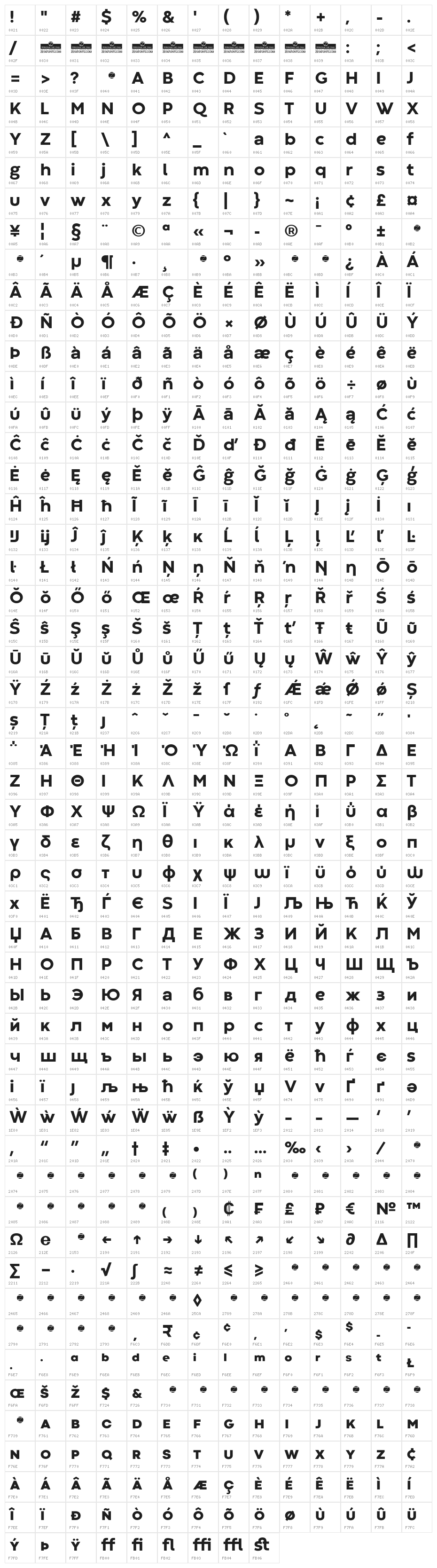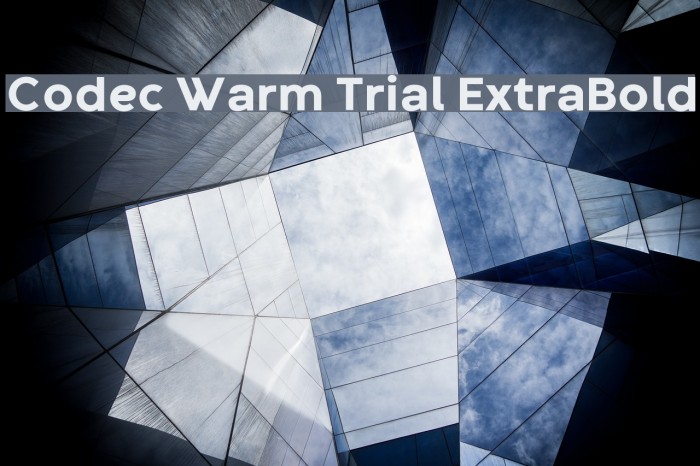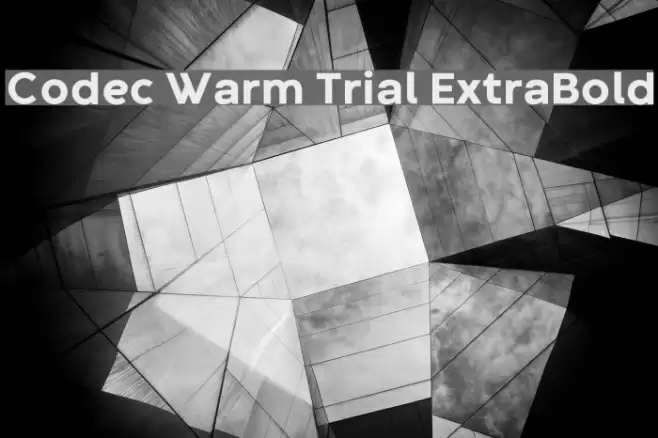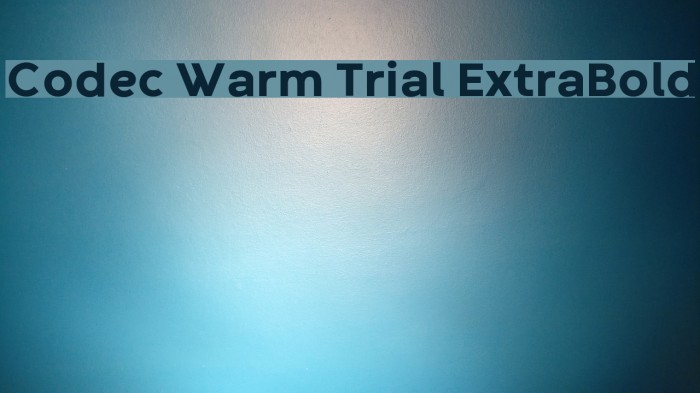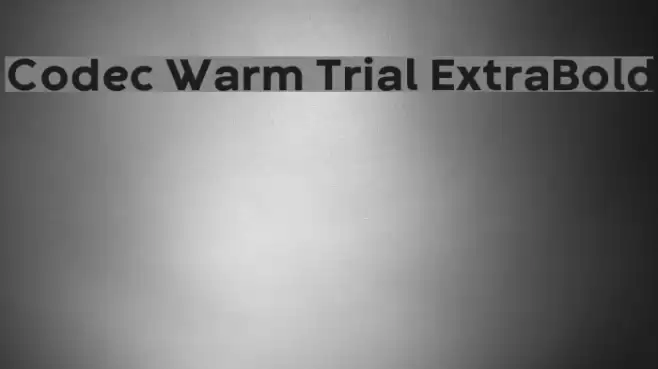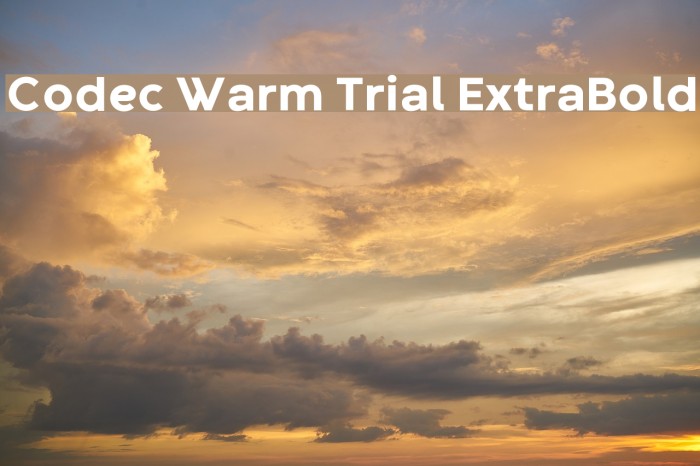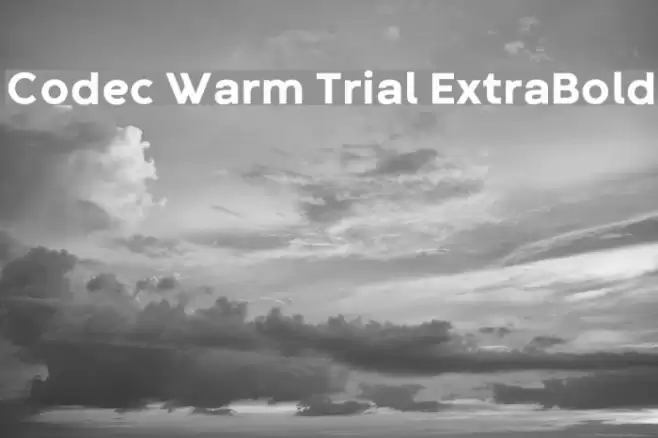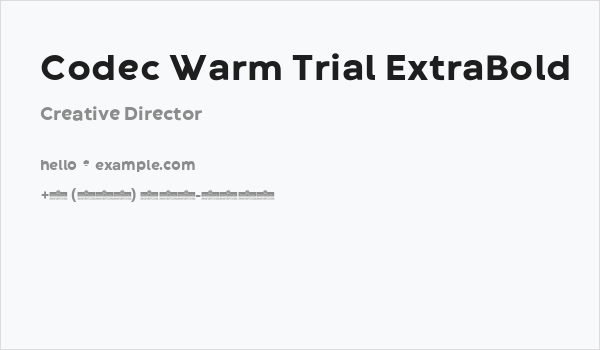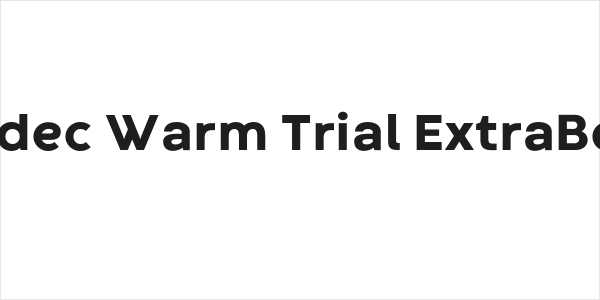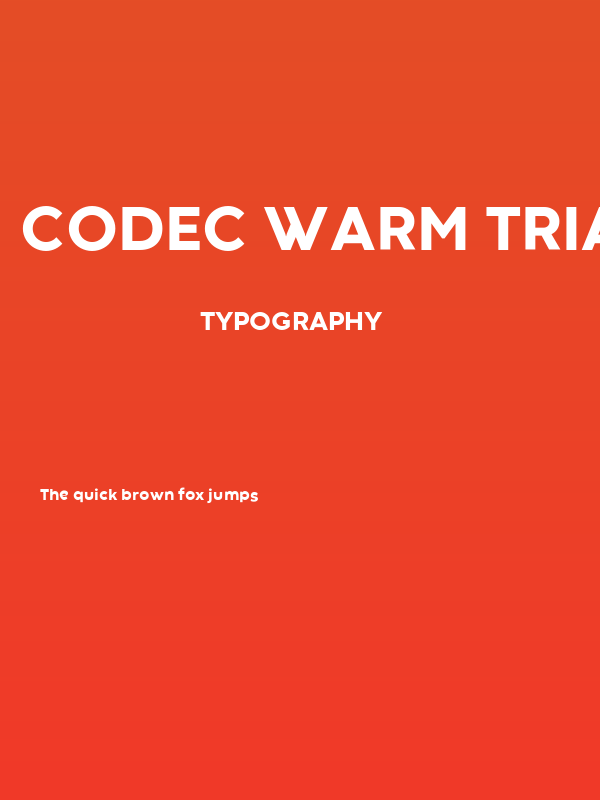
Codec Warm Trial ExtraBold Font
Codec Warm Trial ExtraBold Description
This typeface features a bold and contemporary design, characterized by clean lines and a strong presence. The uppercase and lowercase letters are well-proportioned, offering a harmonious balance that enhances readability. The numerals and special characters maintain the same boldness, ensuring consistency across all text elements. The font's geometric shapes and uniform stroke widths contribute to its modern and professional appearance, making it suitable for a variety of design applications.
Use CaseHeadlines, Logos, Branding
Proposed ProjectsIdeal for branding, advertising, headlines, and digital media projects where a strong, modern impression is desired.